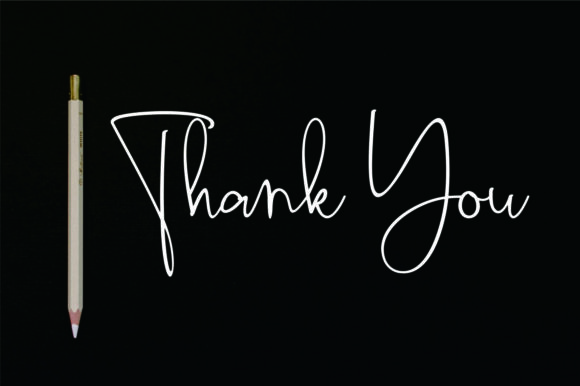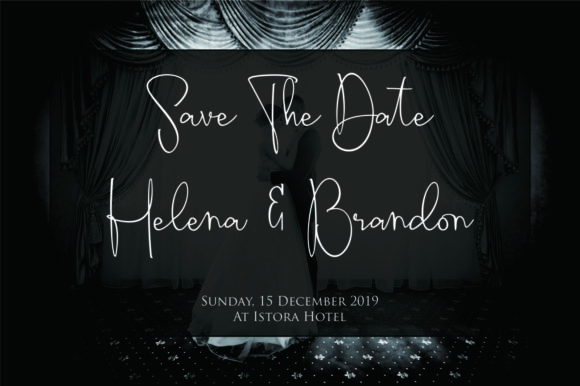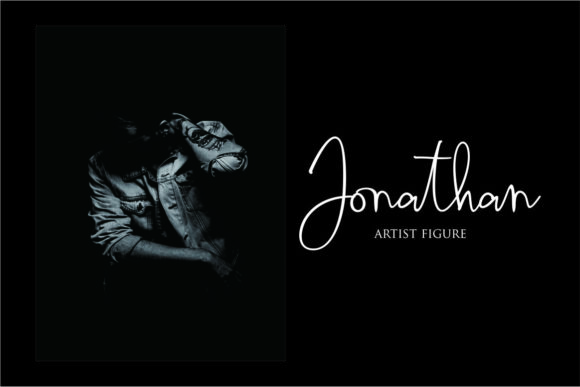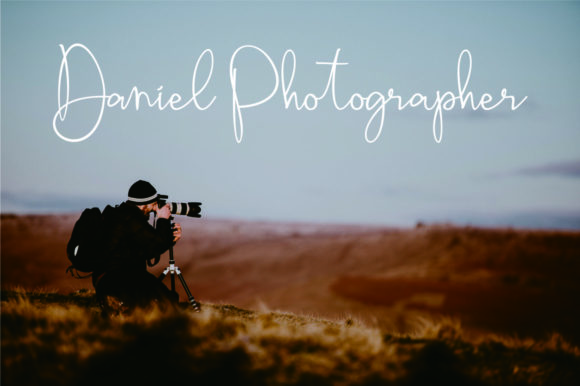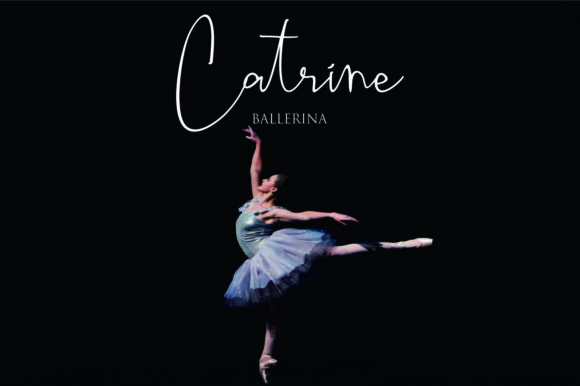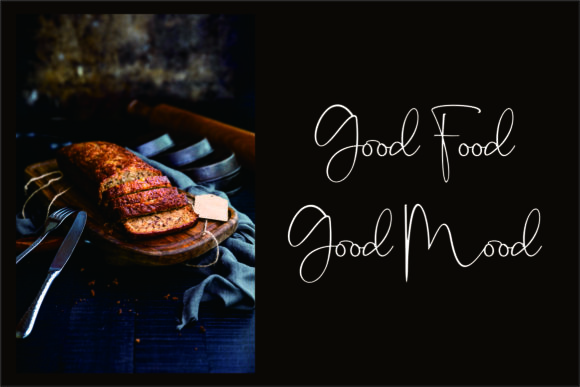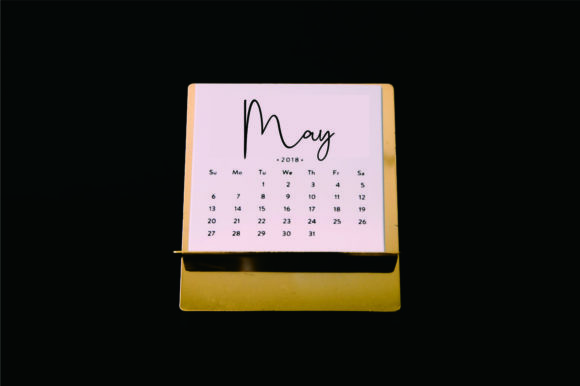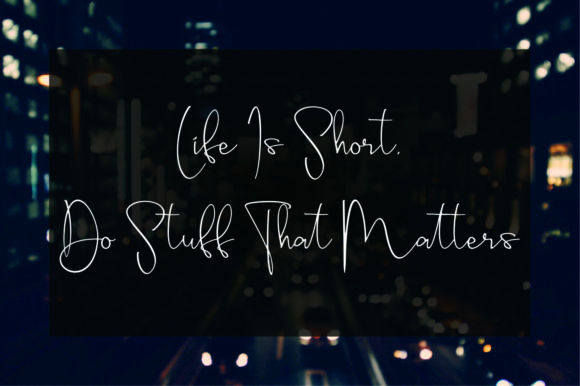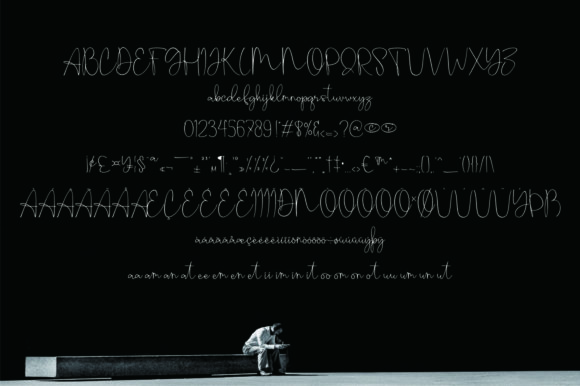
HomeScript FontsEffendi Font Script Fonts Effendi Font FacebookXPinterestWhatsApp Effendi Font Poster 2 Effendi Font Poster 3 Effendi Font Poster 4 Effendi Font Poster 5 Effendi Font Poster 6 Effendi Font Poster 7 Effendi Font Poster 8 Effendi Font Poster 9 Effendi Font Poster 10 About Effendi Font Effendi is a unique script font. Fall in love with its modern look & feel. DOWNLOAD ON CREATIVE FABRICAThis font is sold and delivered by Creative Fabrica. Font Canyon may earn a commission if you buy through this link. People also explored Genospace Font Medieval Times Font DDT Variable Ningsih Font Vita Valentina Font Masato Family Font Lorimer No 2 Condensed Brittania Font Quintessa Font 386 0 TagsEffendi Font Previous articleSophiscated FontNext articleVippa Willette Font LEAVE A REPLY Cancel reply Comment: Please enter your comment! Name:* Please enter your name here Email:* You have entered an incorrect email address! Please enter your email address here Website: Save my name, email, and website in this browser for the next time I comment. Personal Use Free Cute Messy Personal Use Free Read more about this font Dakwart Letter Personal Use Free Read more about this font Imelda Personal Use Free Read more about this font Colourbars Personal Use Free Read more about this font BLOG Top 10 Handwritten Fonts That Elevate Your Designs Top 10 Handwritten Fonts That Will Elevate Your Designs Handwritten fonts bring a warm, personal touch to every creative project. Whether you're designing logos, invitations,... Best Fonts for YouTube Videos: Make Your Thumbnails Stand Out Using Fonts in Digital Marketing: Tips to Strengthen Your Brand Identity Free Fonts Risk: Why Free Fonts Can Be Dangerous for Designers